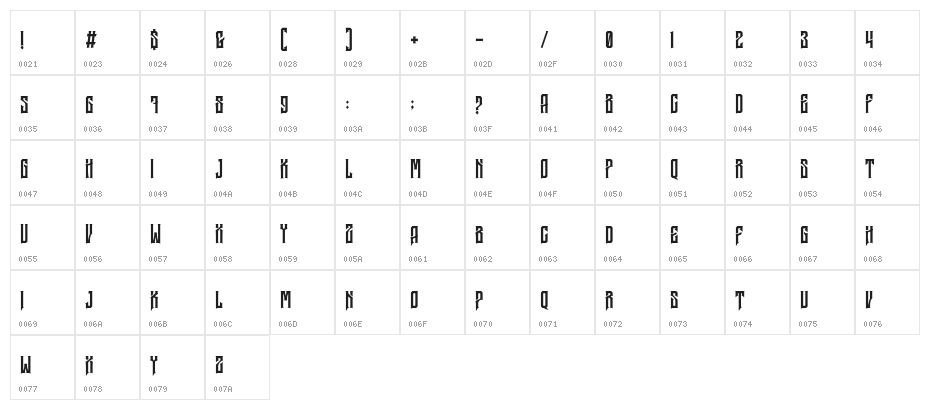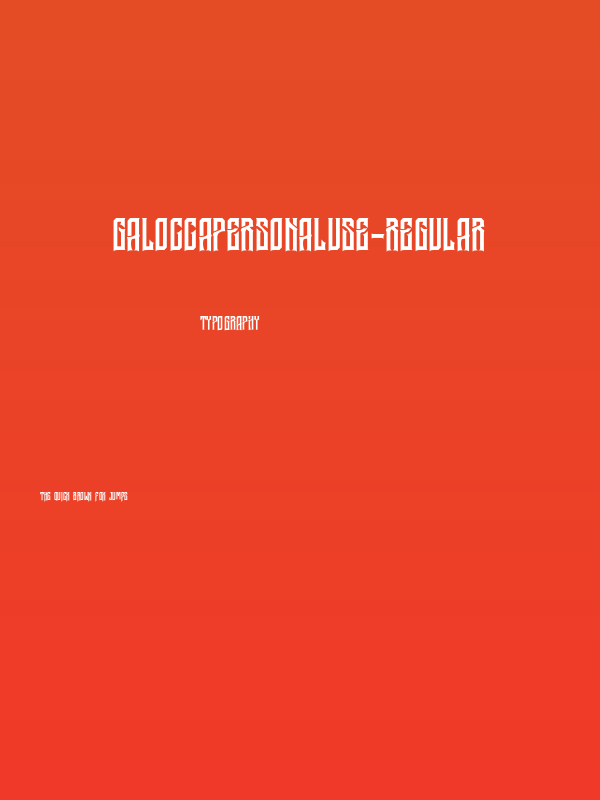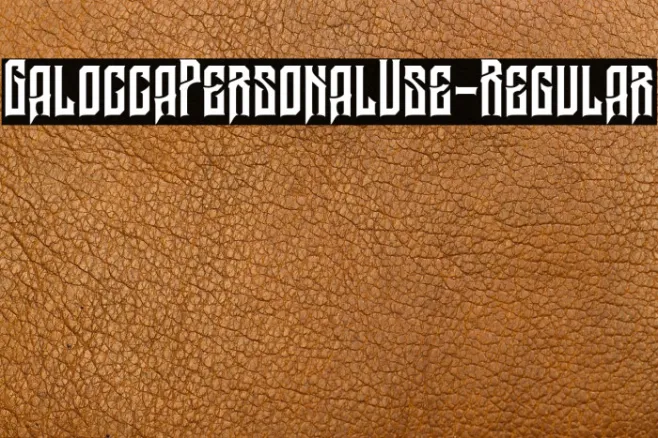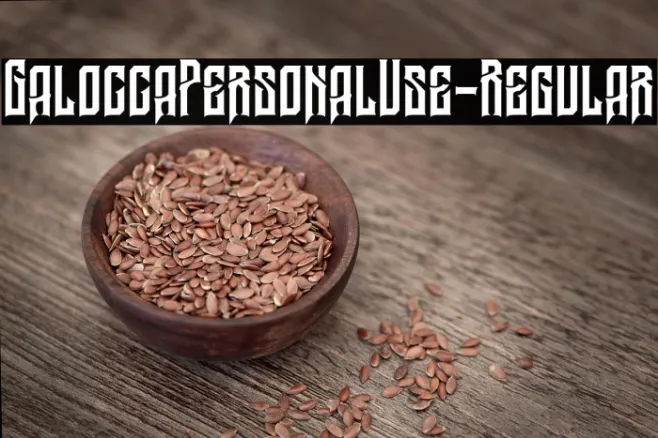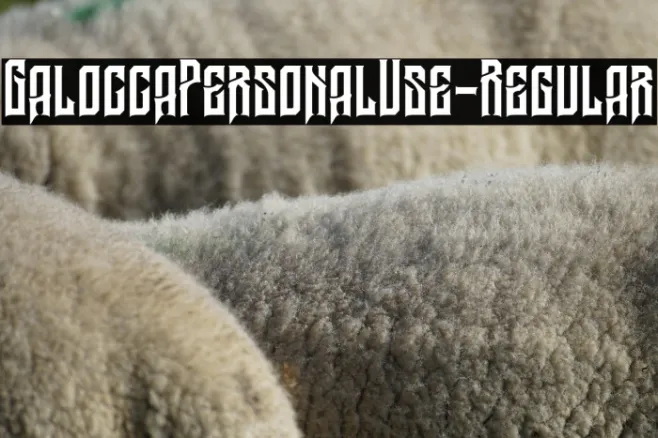
GaloccaPersonalUse-Regular Font
GaloccaPersonalUse-Regular Description
This font features a bold and striking design with sharp, angular edges and a distinct geometric style. The uppercase letters are tall and narrow, giving a sense of height and elegance. The lowercase letters maintain a similar style, ensuring consistency throughout. Numbers and special characters are crafted with the same attention to detail, making them stand out. The overall appearance is reminiscent of Gothic or medieval styles, with a modern twist that adds a unique flair. This font is perfect for creating eye-catching headlines or logos that require a strong visual impact.
| Overall Style | Modern Gothic |